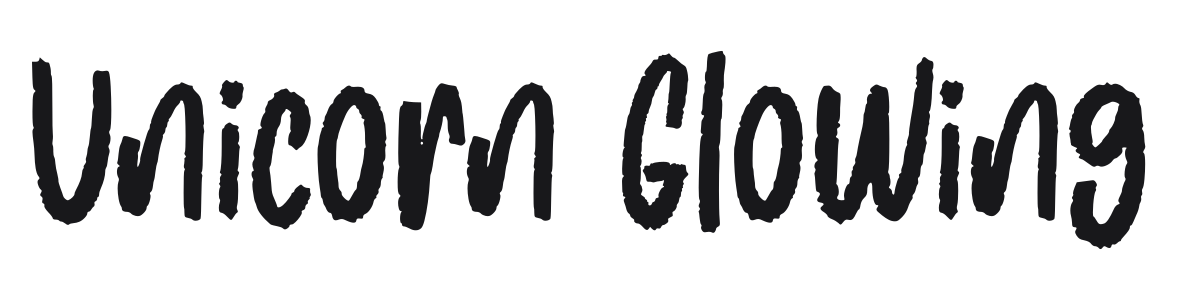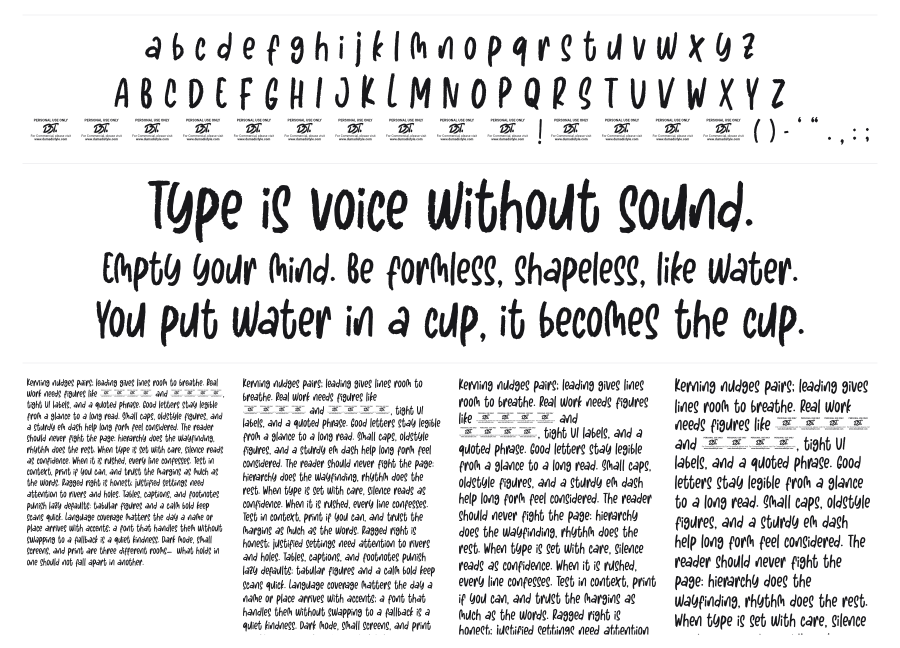
Unicorn Glowing
Unicorn Glowing is a bold, hand-drawn casual font with chunky, wobbly strokes that feel like they were dashed off with a thick marker. Letters bounce on the baseline and vary in height, giving text an unscripted, spontaneous energy. It suits playful branding, children's media, and anything that needs personality over precision.